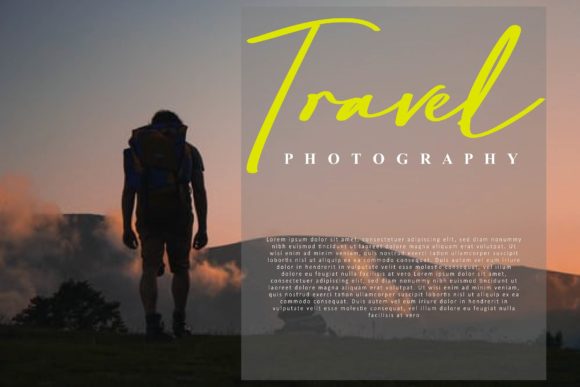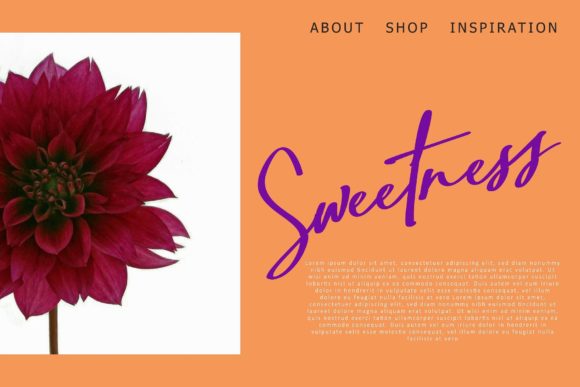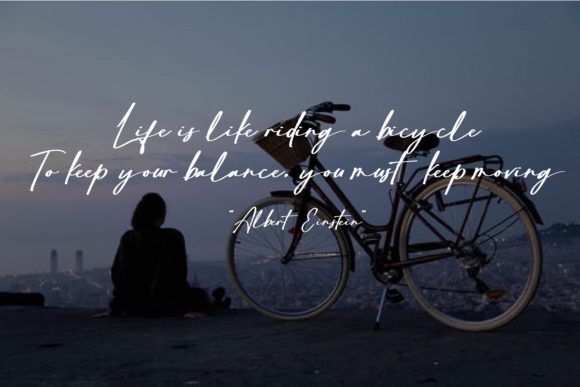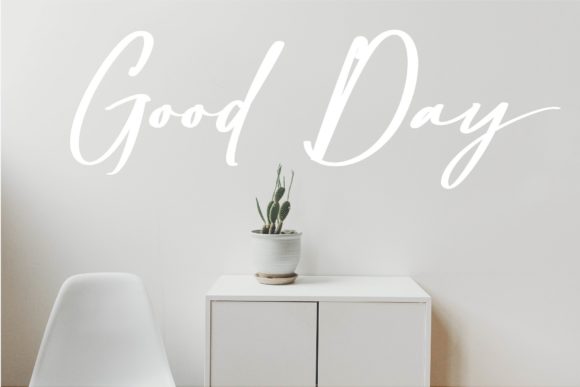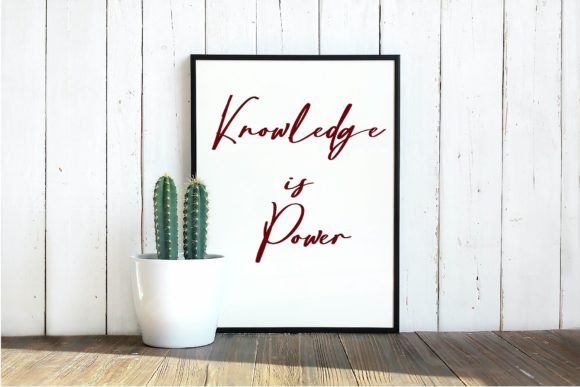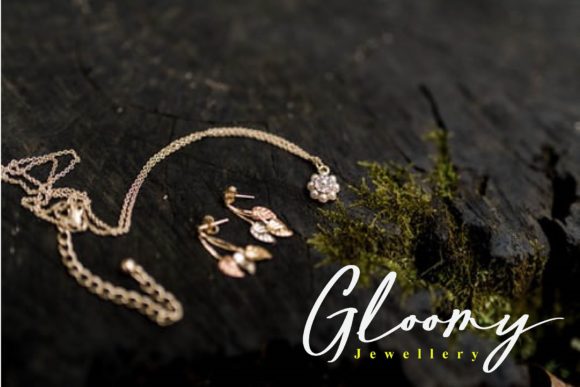
Introduction to Hidens Font
Have you ever been working on a creative project, staring at a blank canvas, trying to come up with the perfect design element to bring it all together? I’m sure you have, and I’m right there with you. It’s those moments of uncertainty that often lead to some of the most innovative and amazing designs. And that’s exactly what the Hidens Font can do for you – add that extra touch of elegance and sophistication to your design projects.
As a valuable design resource, the Hidens Font offers a unique blend of relaxed, adaptable, and trendy script styles that can elevate any creative project. With its high-quality design and transparent background, this font is a must-have for any designer looking to add a touch of personality to their work.
Key Features of Hidens Font
- High-quality, professional font design for creative projects
- Unique transparent background design ideal for design resources and backgrounds
- Perfect for use in digital design, web design, and graphic design
- Includes 1 font style with multiple weights and sizes for versatility
Honest Review: Hidens Font
As a designer, I’m always on the lookout for high-quality design resources to elevate my creative projects. Recently, I stumbled upon the Hidens Font, and I must say, it’s been a game-changer for my design workflow.
- ✨ The Hidens Font offers a transparent background, making it a great addition to any design project that requires a clean and minimalist look.
- ✨ The design of the font is sleek and modern, making it perfect for creative projects that require a touch of sophistication.
- ⚠️ The font may not be suitable for projects that require a bold or dramatic font style.
- ⚠️ The font may not be as versatile as other fonts in terms of font sizes and weights.
Overall, I’m impressed with the Hidens Font, and I would definitely recommend it to fellow designers. While it may have some limitations, its high quality and sleek design make it a valuable addition to any design resource library.
Hidens Font: A High Quality Design Resource for Creative Projects
Tips for Getting the Most Out of Hidens Font
To get the most out of Hidens Font, use it in conjunction with other design resources, such as high-quality images and graphics. Experiment with different font sizes, colors, and styles to create unique and eye-catching designs. With a transparent background, you can easily combine Hidens Font with other design elements to create a cohesive look.
Common Use Cases for Hidens Font
Hidens Font is a versatile design resource that can be used in a variety of creative projects, such as logos, business cards, and marketing materials. It’s also great for use in presentations, documents, and websites, where a high-quality font can make a big impact. With a free download of Hidens Font, you can easily incorporate it into your next design project.
Is Hidens Font suitable for high-resolution printing?
Yes, Hidens Font is a high-quality design resource that is suitable for high-resolution printing. The font has been optimized for crisp and clear rendering at high resolutions, making it perfect for creative projects that require a professional finish.